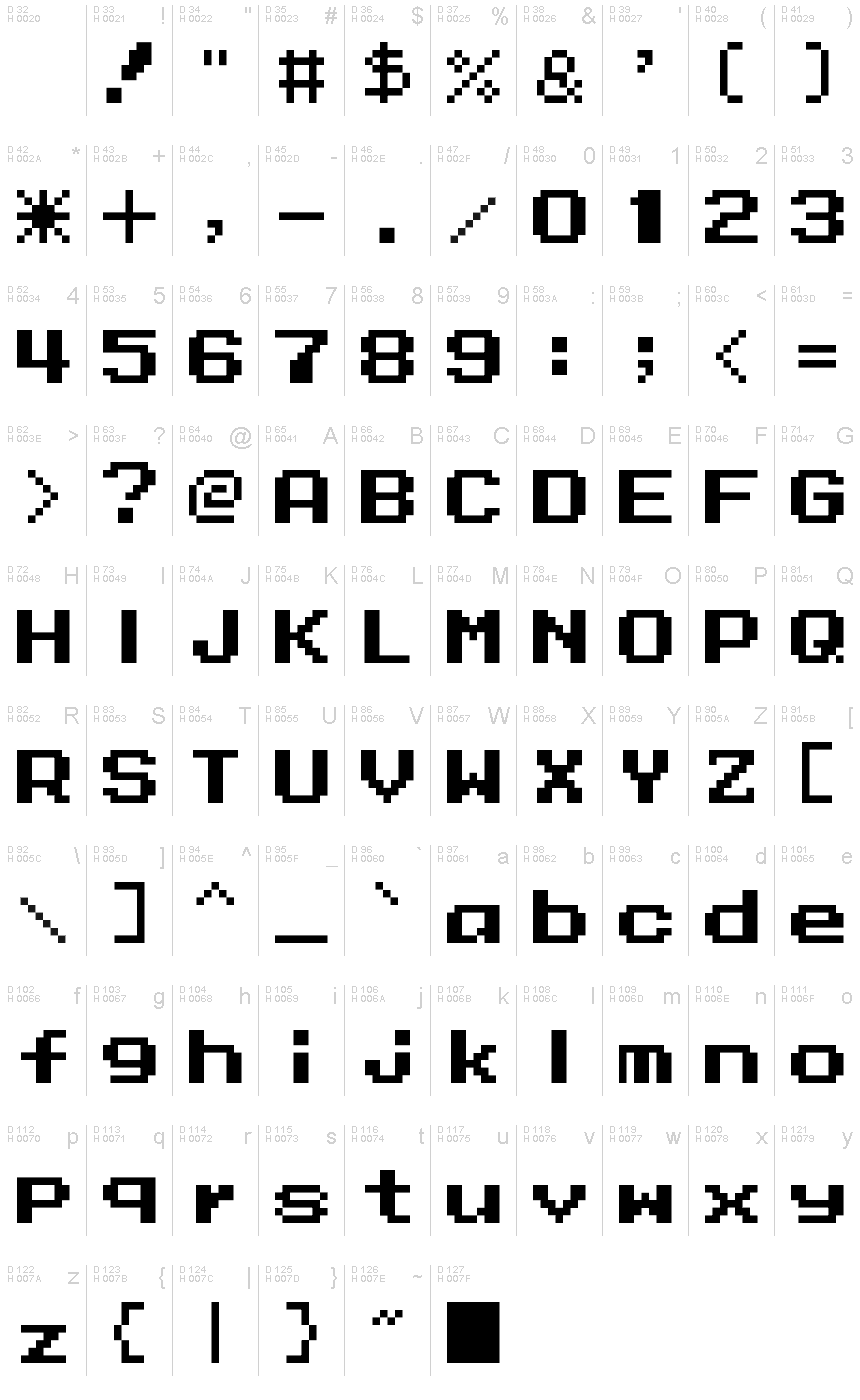
MMRock9
MMRock9, a captivating pixel font recreation crafted by Caveras / Cliff Modes, captures the retro-inspired charm of the iconic Mega Man video game series. This monospaced, sans-serif display font boasts a bold, expanded silhouette, delivering a visually striking and pixelated aesthetic that evokes a sense of nostalgia and digital authenticity.
Adorned with a comprehensive character set, including Japanese hiragana and katakana, MMRock9 offers a versatile canvas for a wide range of design applications. Its unwavering commitment to preserving the original in-game appearance of the Mega Man font ensures a seamless integration into projects that seek to channel the essence of classic gaming or retro-futuristic aesthetics.
664 characters total
Monospaced sans-serif display typeface
Countless additional special characters, diacritic variants, etc.
Complete original Japanese hiragana and katakana character sets
Some game-related, special logo glyphs
MMRock9 by Caveras - based on the original pixel font used in Mega Man 9 and other games of the Mega Man video game series for various systems (Capcom, 1987-2012).